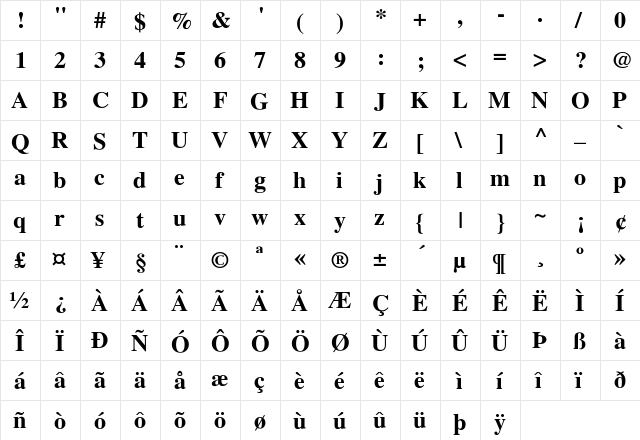
Times-Bold Regular
Design Context for Times-Bold Typeface
Times-Bold is a composed and adaptable typeface that performs quietly and consistently across a wide range of design contexts. The heavy weight commands attention and anchors typographic hierarchies.
Pro Tip: Use Times-Bold in both headline and body roles to test its range before committing to a single application.